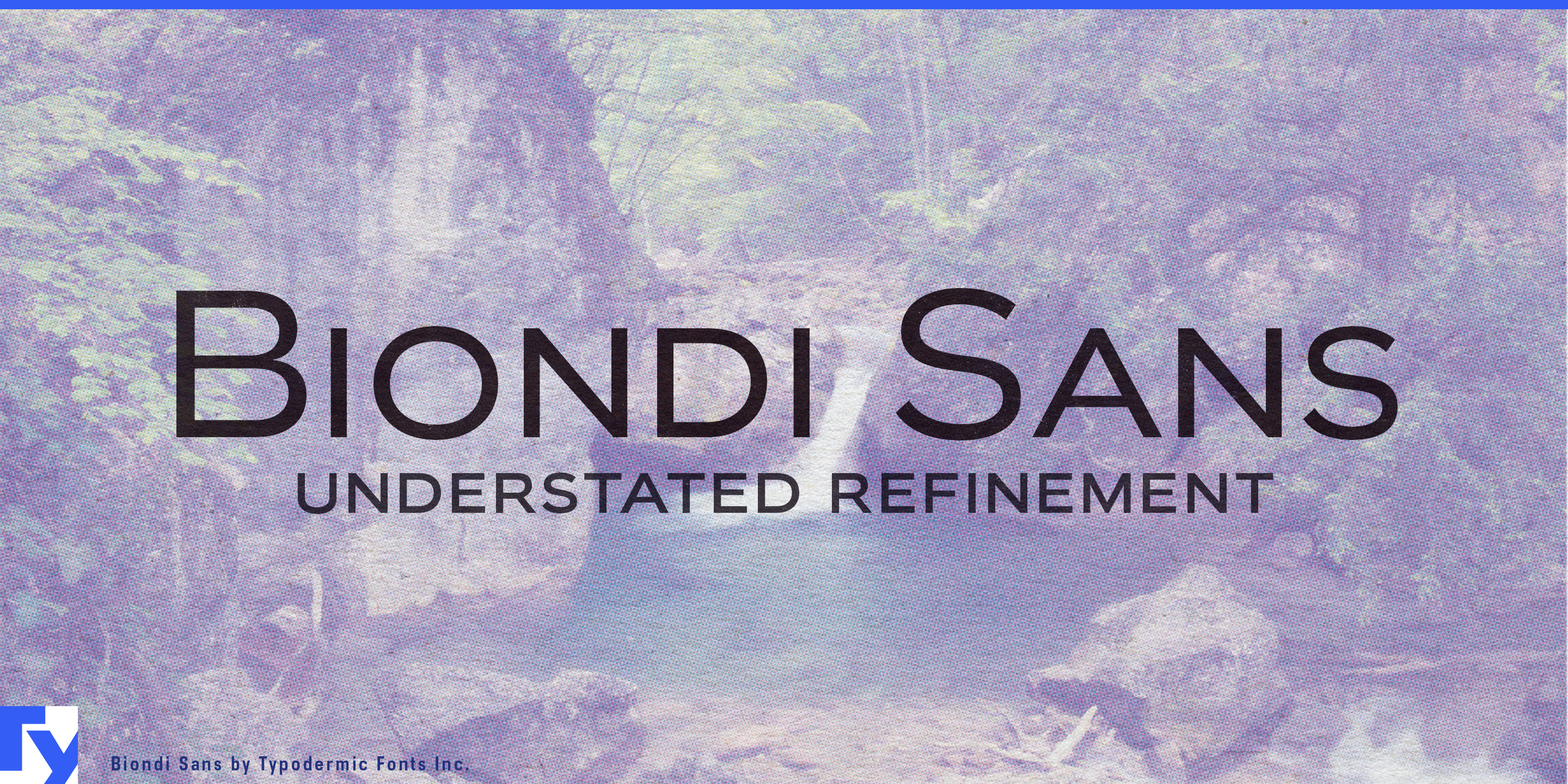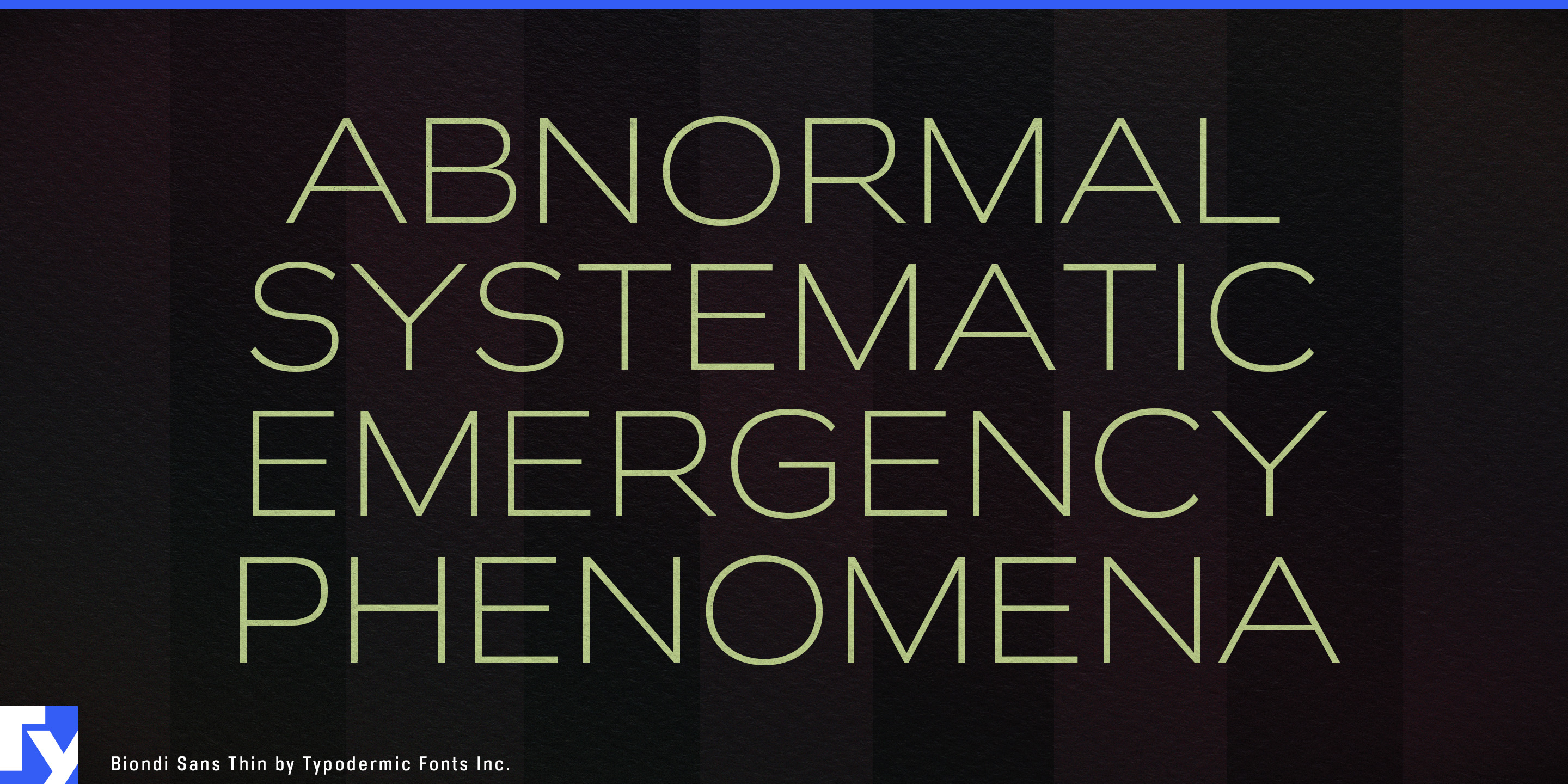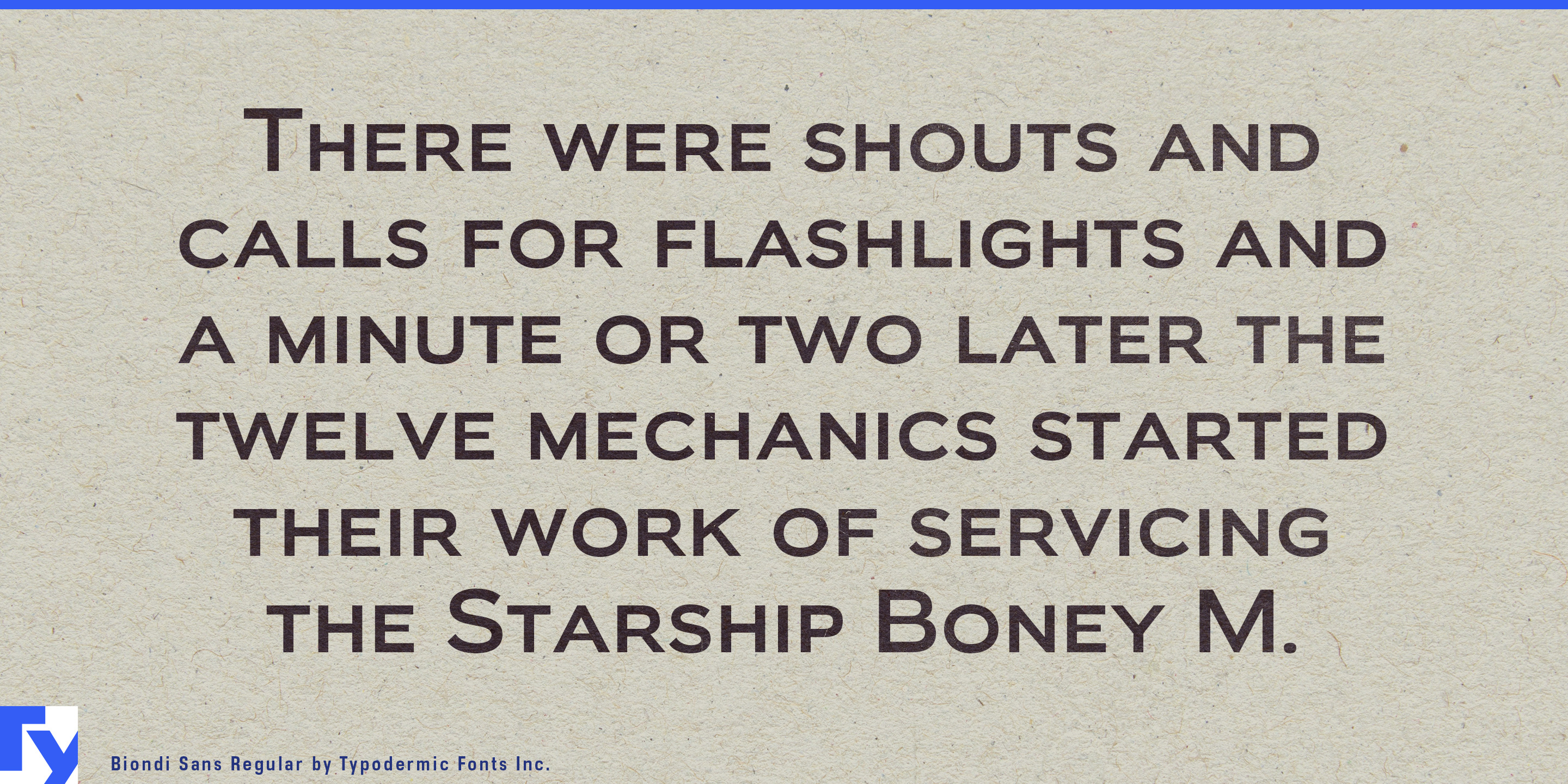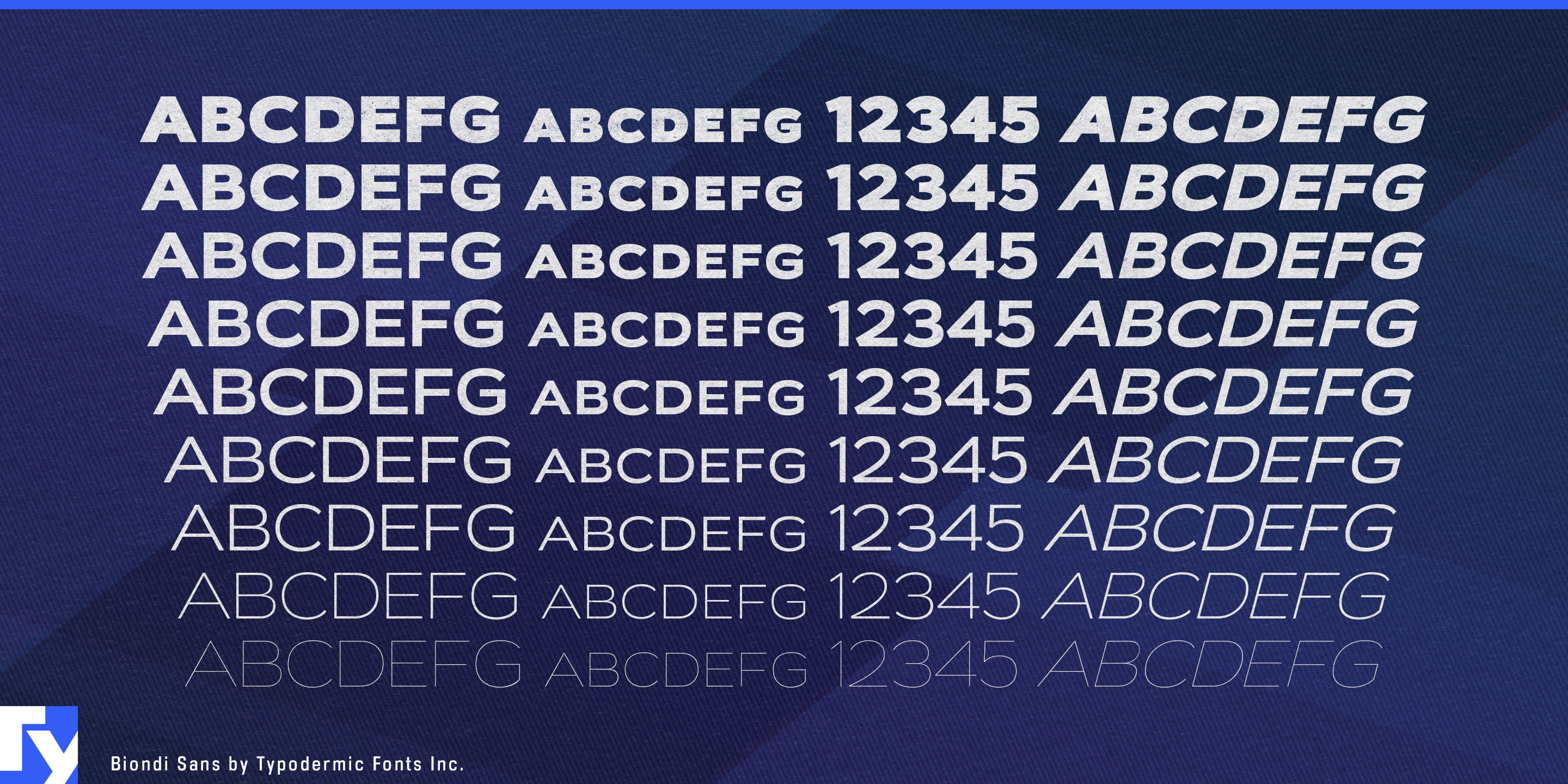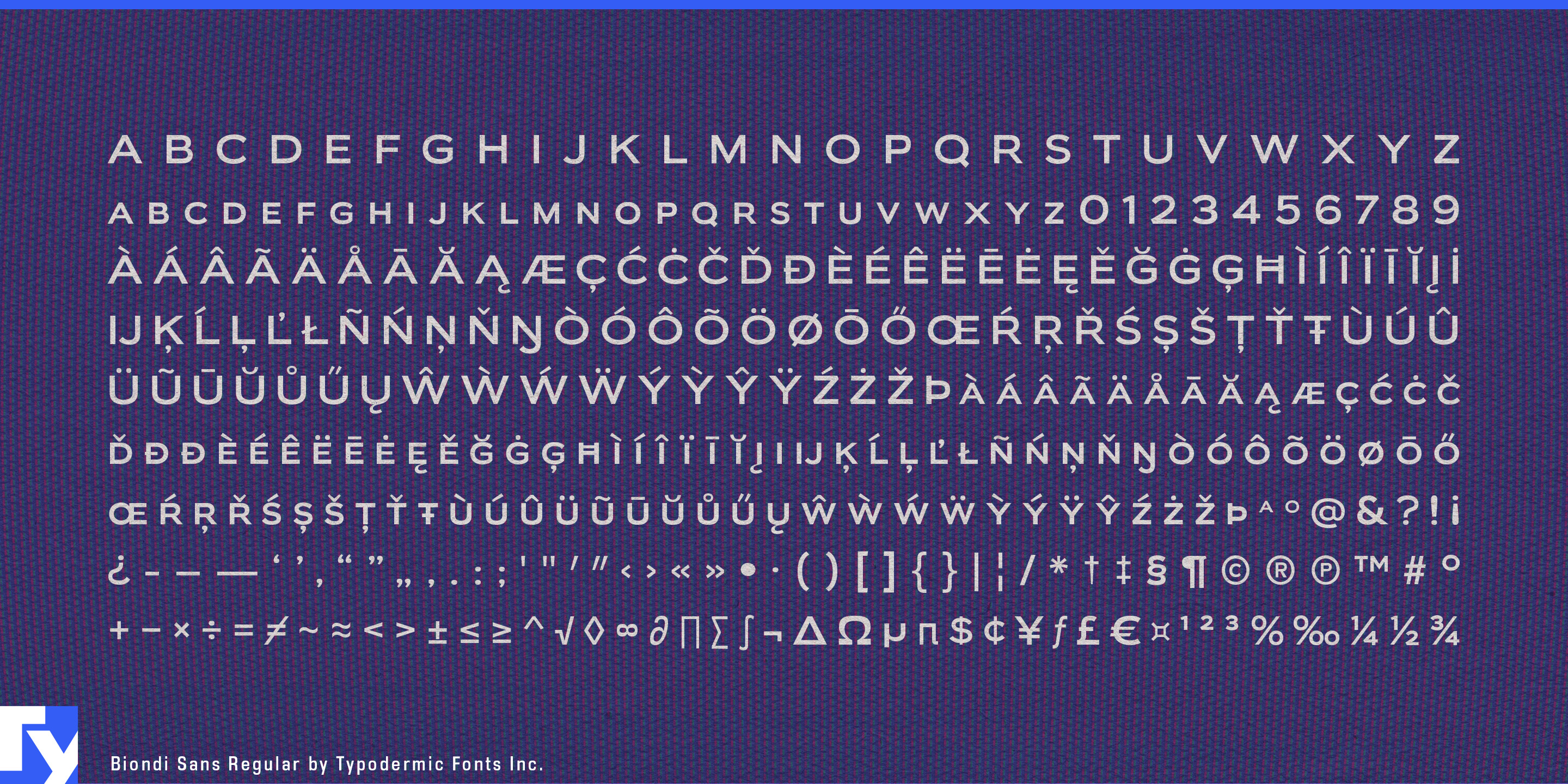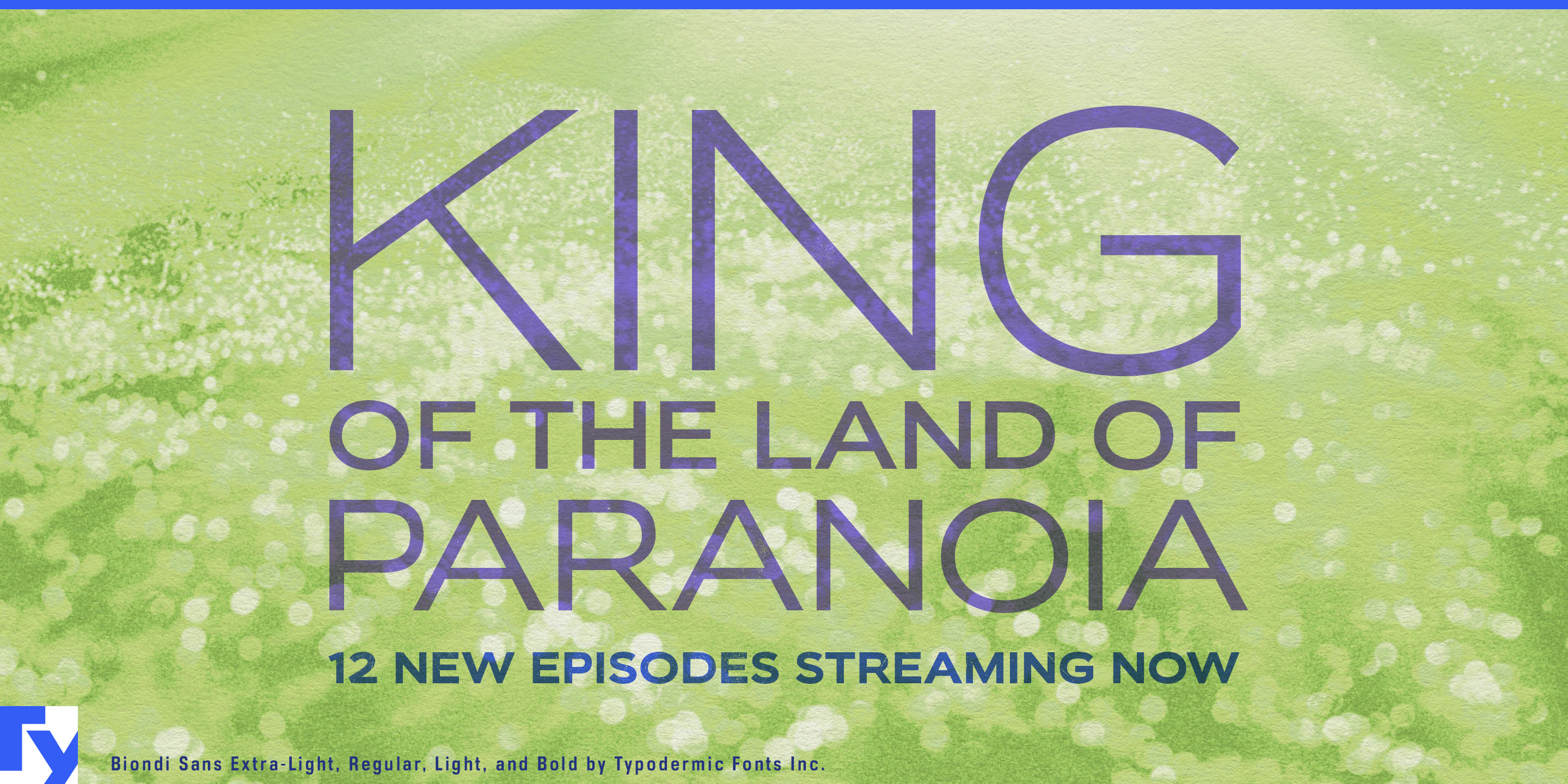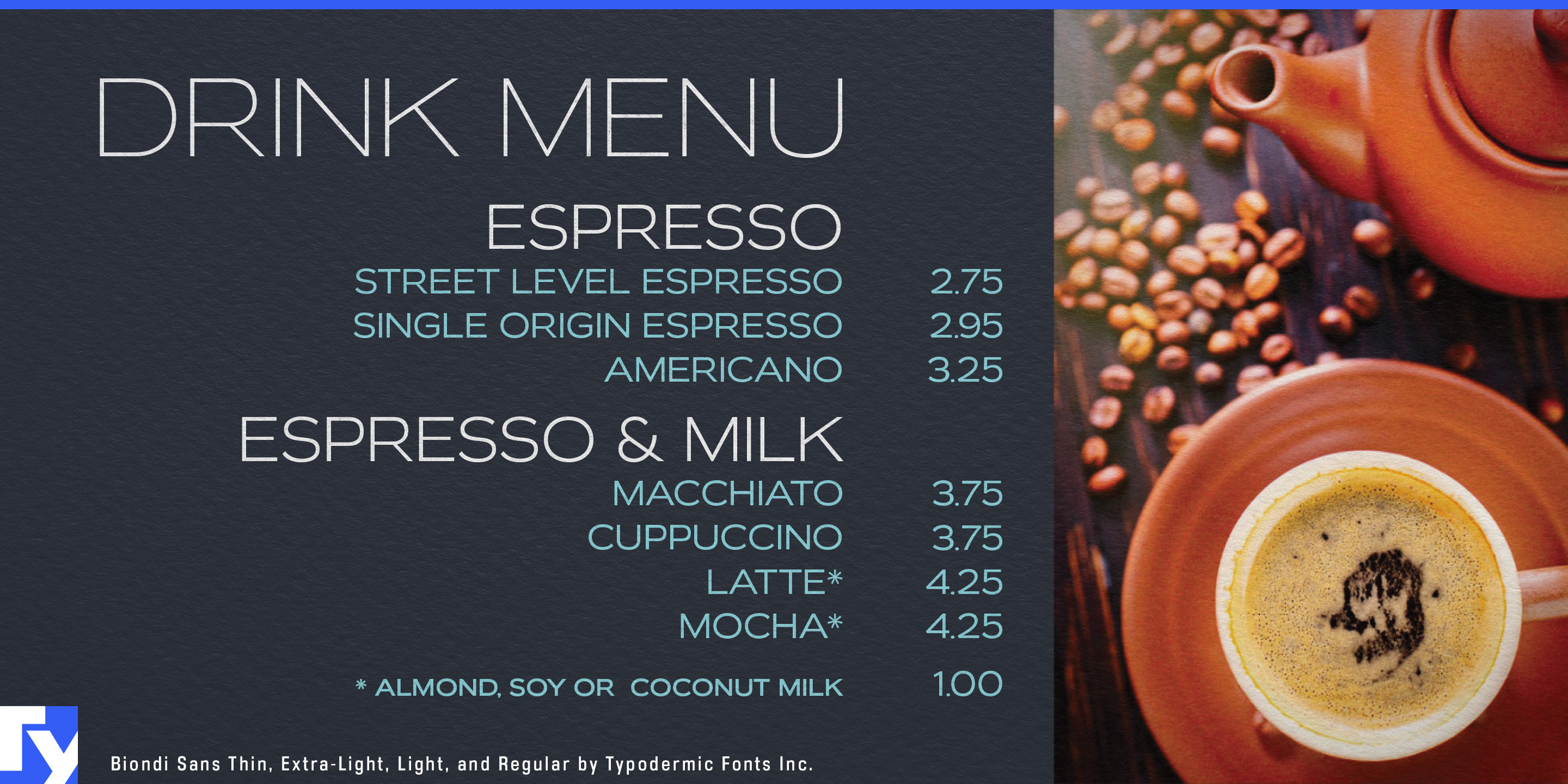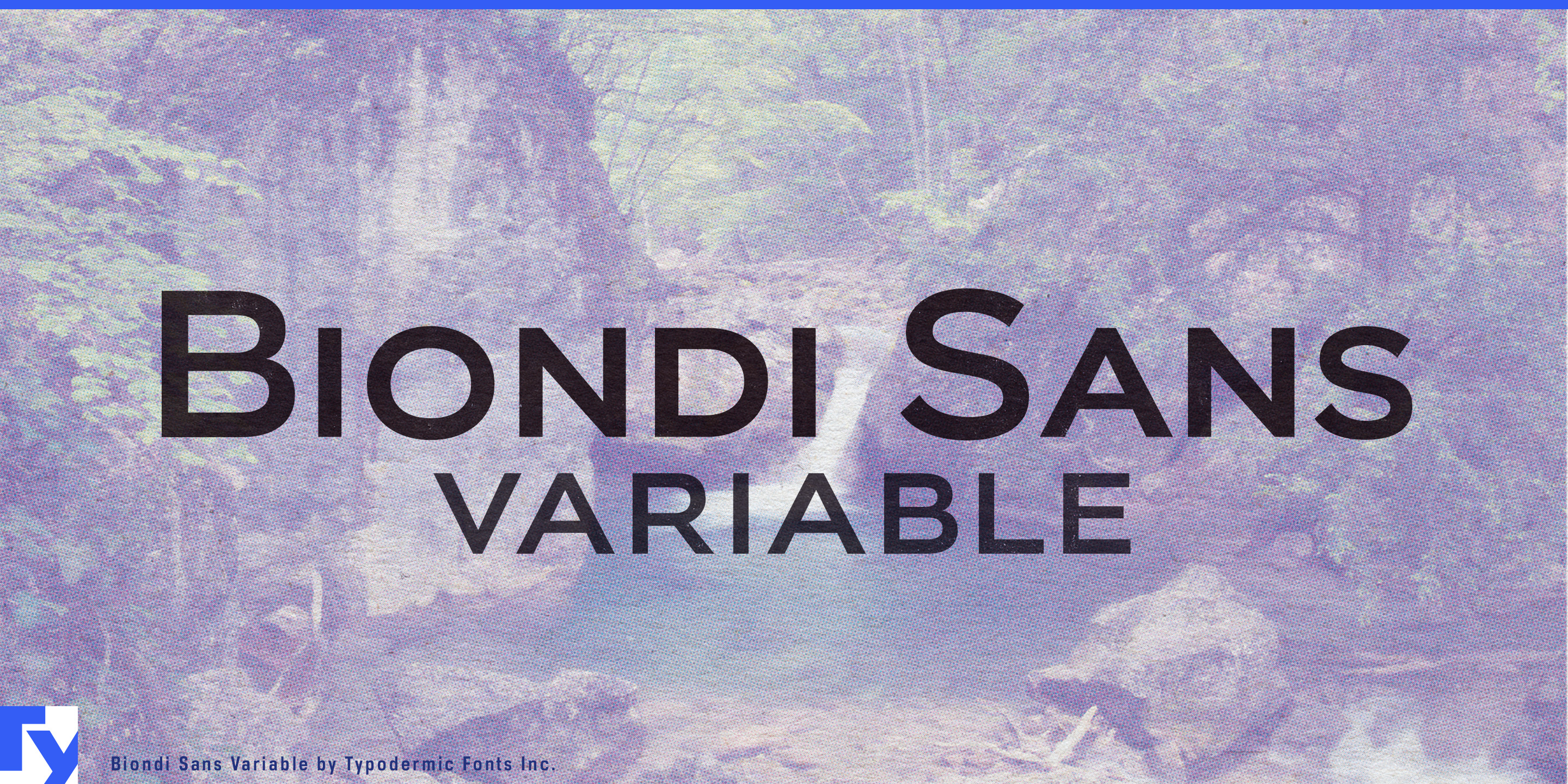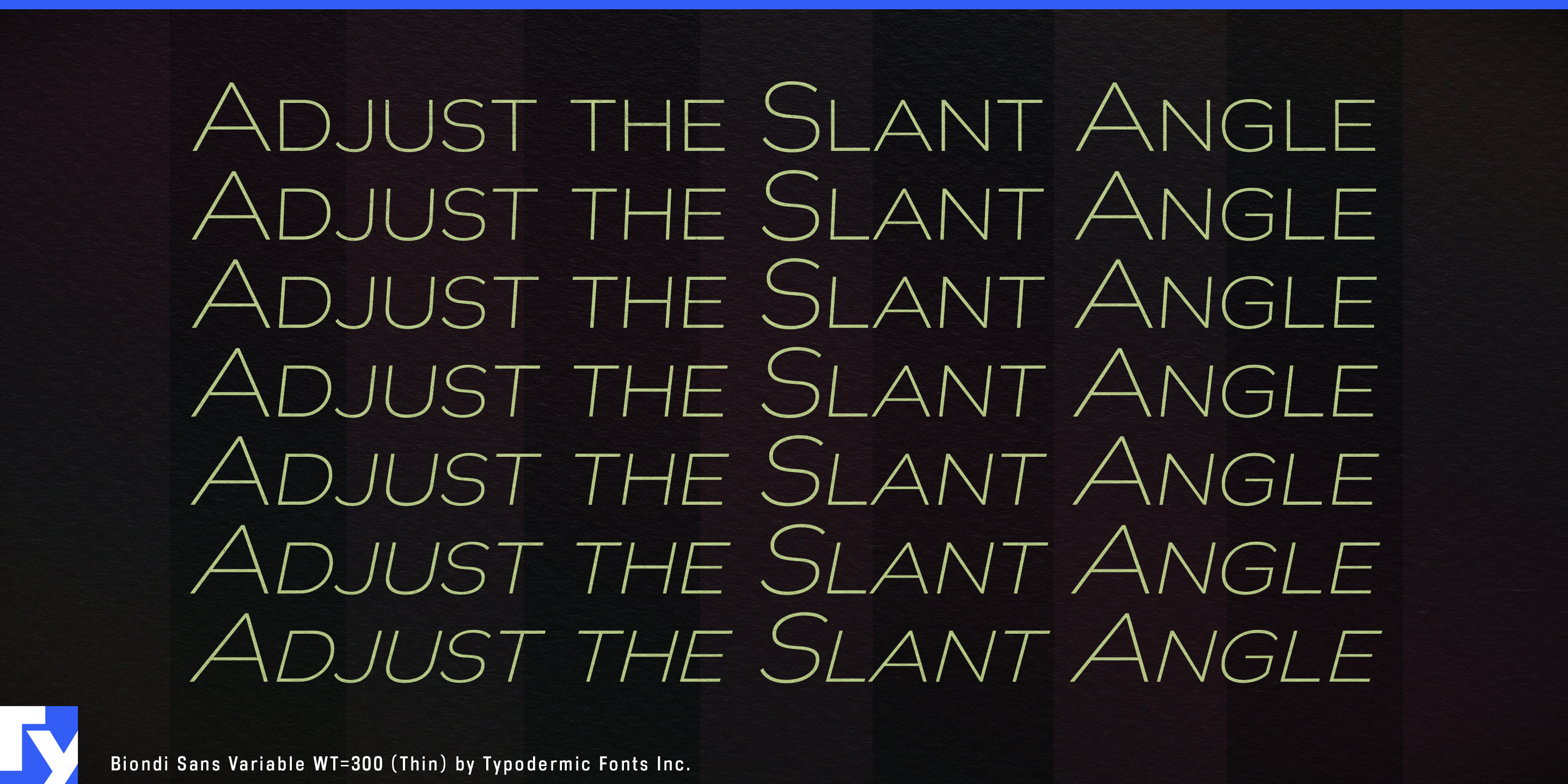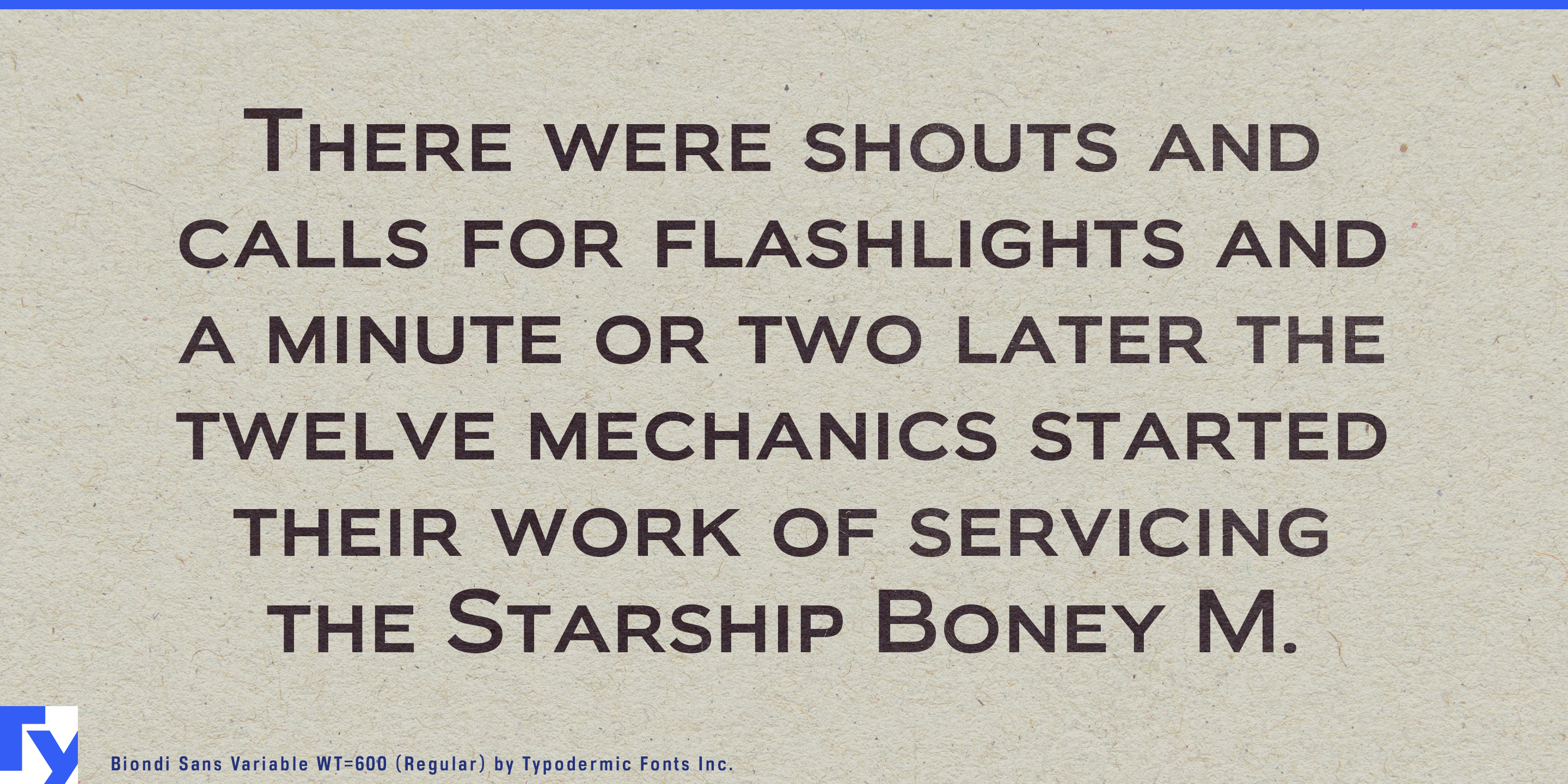
Biondi Sans
Biondi Sans began with the wedge serifs shaved from Biondi, retaining its broad, squarish proportions and engraver-derived capital structure. Although the two families have since been independently reworked, their relationship remains visible. The result is a serifless interpretation of the lettering tradition associated with Copperplate Gothic; formal and architectural, with a cleaner contemporary finish.
Biondi Sans is an all-capitals display family. Full-size capitals occupy the uppercase positions, while the lowercase positions contain smaller capitals. With no conventional lowercase, it is intended for names, headings, labels, navigation, and other short passages rather than continuous text.
That structure is particularly at home in restaurant and hospitality identities. Establishment names can lead on façades, menu covers, etched-glass entrances, and hotel signage; smaller information can handle locations, cuisine, founding dates, menu sections, and private-room designations. The same lettering can continue through wine lists, cocktail menus, coasters, matchbooks, room directories, and formal stationery, giving the entire identity the character of engraved lettering without relying on ornamental serifs.
Wine, spirits, and specialty-food packaging offer similar opportunities. Broad capitals give producer and product names a strong silhouette, while weights and capitalization can distinguish vintages, varietals, regions, and classifications within compact labels. Biondi Sans also suits olive-oil tins, preserve labels, chocolate boxes, and gourmet gift packaging that calls for clarity with a degree of ceremony.
Its engraver ancestry carries naturally into architectural and cultural work: building names, brass plaques, lobby directories, donor walls, commemorative inscriptions, exhibition titles, gallery headings, and university or foundation identities. In publishing, it can organize architecture monographs, museum catalogues, restaurant guides, and historical nonfiction through covers, mastheads, chapter openings, running heads, bylines, and captions; a companion text face can handle the longer reading.